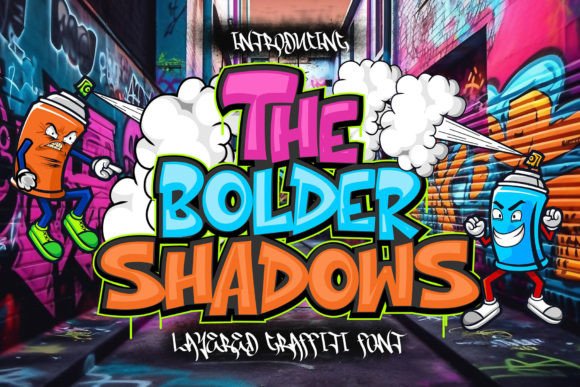
Looking for the perfect font to make your designs stand out? Look no further than The Bolder Shadow Font, the best font for advertising! Created by Cikareotype, this urban graffiti font is guaranteed to catch the eye with its sharp edges and bold look.
With The Bolder Shadows, your music posters, apparel designs, shirts, and streetwear will never be the same again. This font brings a touch of edginess and attitude to your projects, making them truly unforgettable. Say goodbye to boring and hello to captivating!
Imagine the impact of a strong and powerful statement, perfectly embodied in your designs. The Bolder Shadows font allows you to create a visual experience that demands attention. It's the ultimate tool to convey your message in a way that leaves a lasting impression.
Not only does The Bolder Shadows font add a touch of rebellion to your creations, but it also exudes confidence and style. Stand out from the crowd and let your designs speak for themselves. This font is the secret weapon you need to make a statement and leave a mark.
So, what are you waiting for? Elevate your designs with The Bolder Shadows font and unleash your creativity like never before. It's time to make a bold statement and captivate your audience with the best font for advertising.